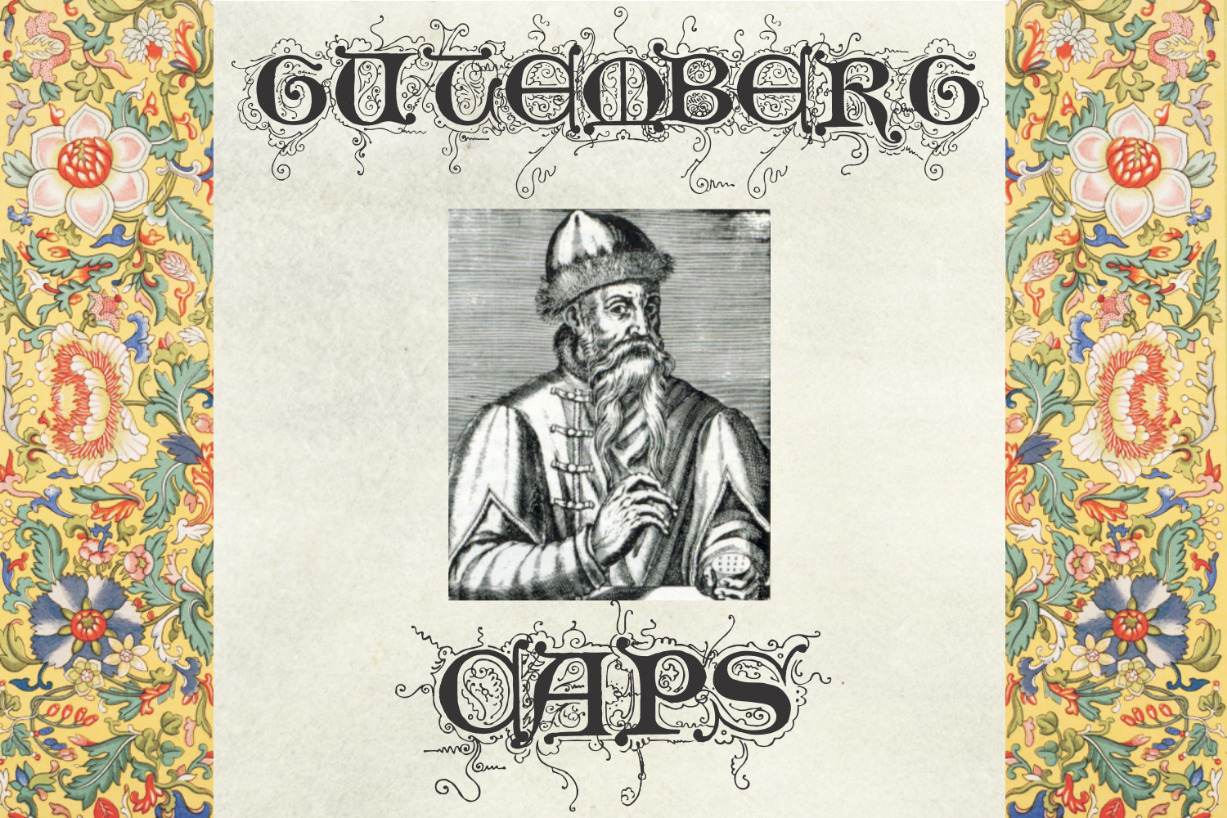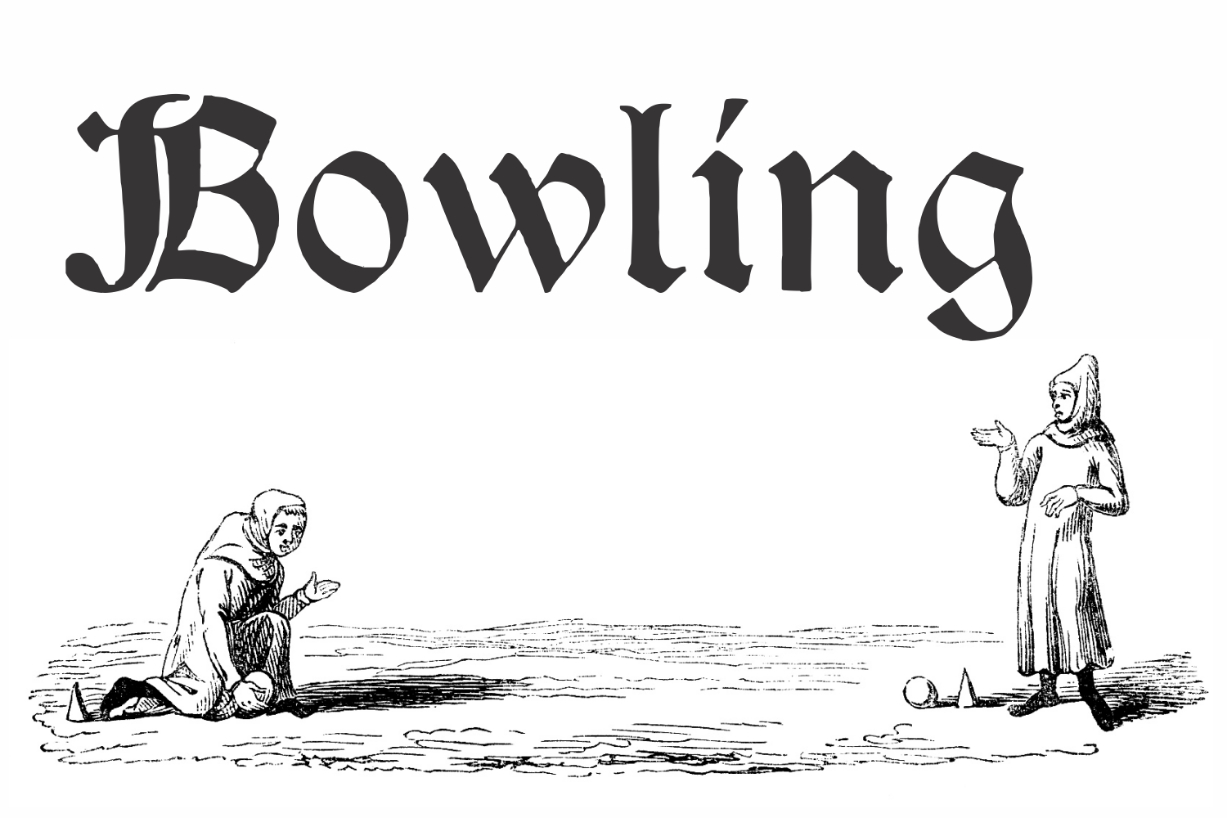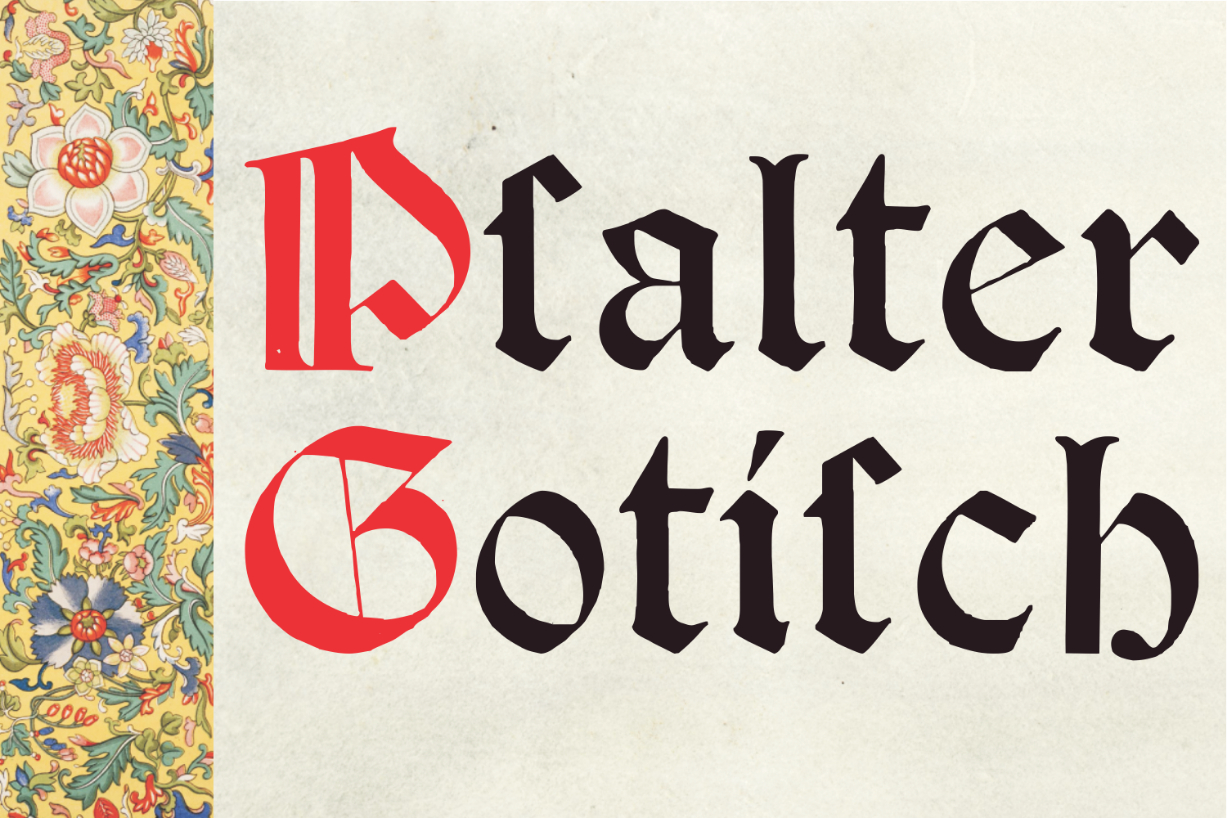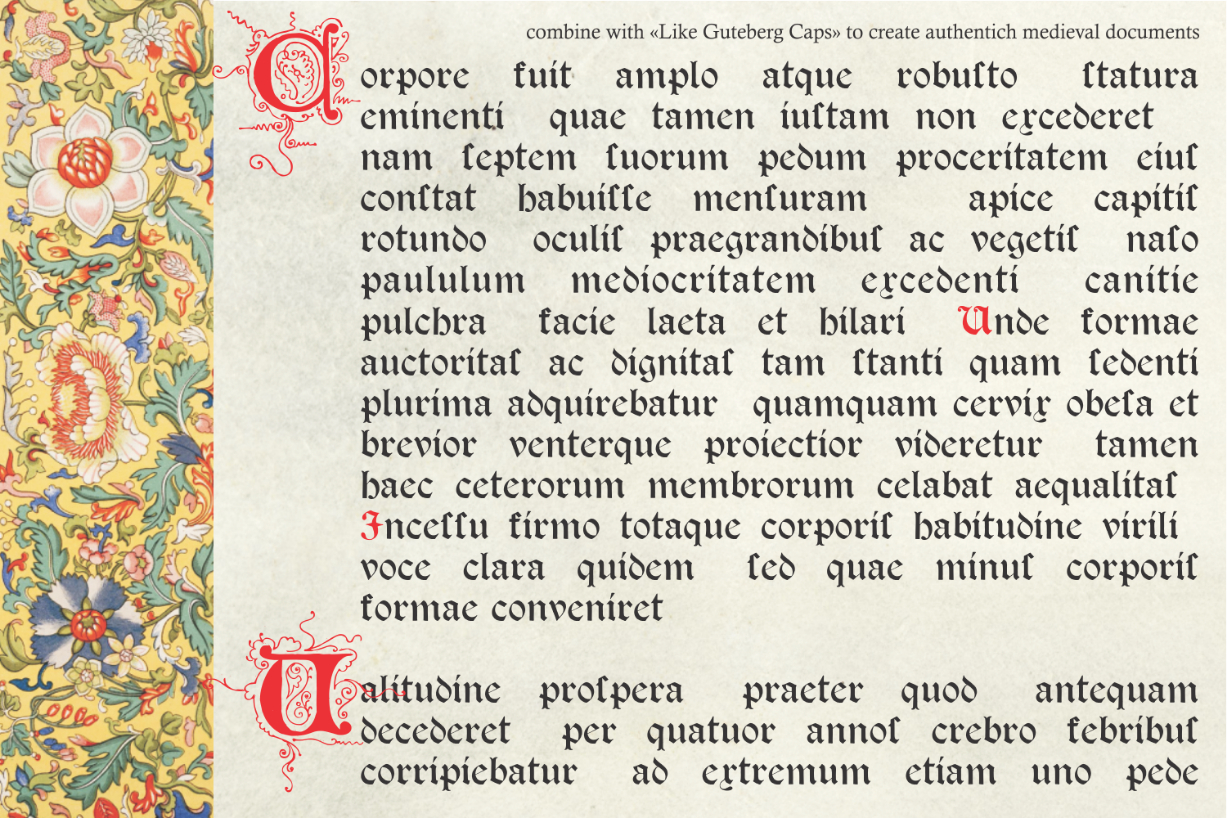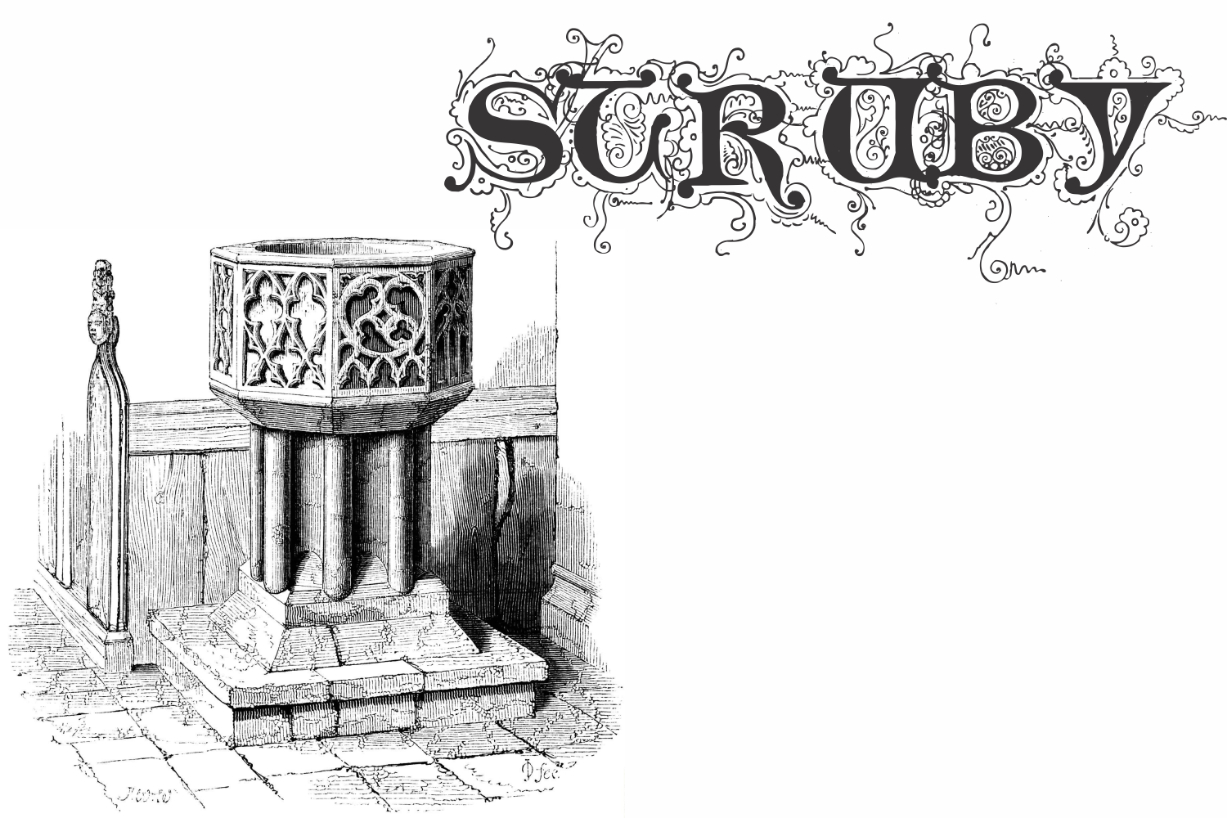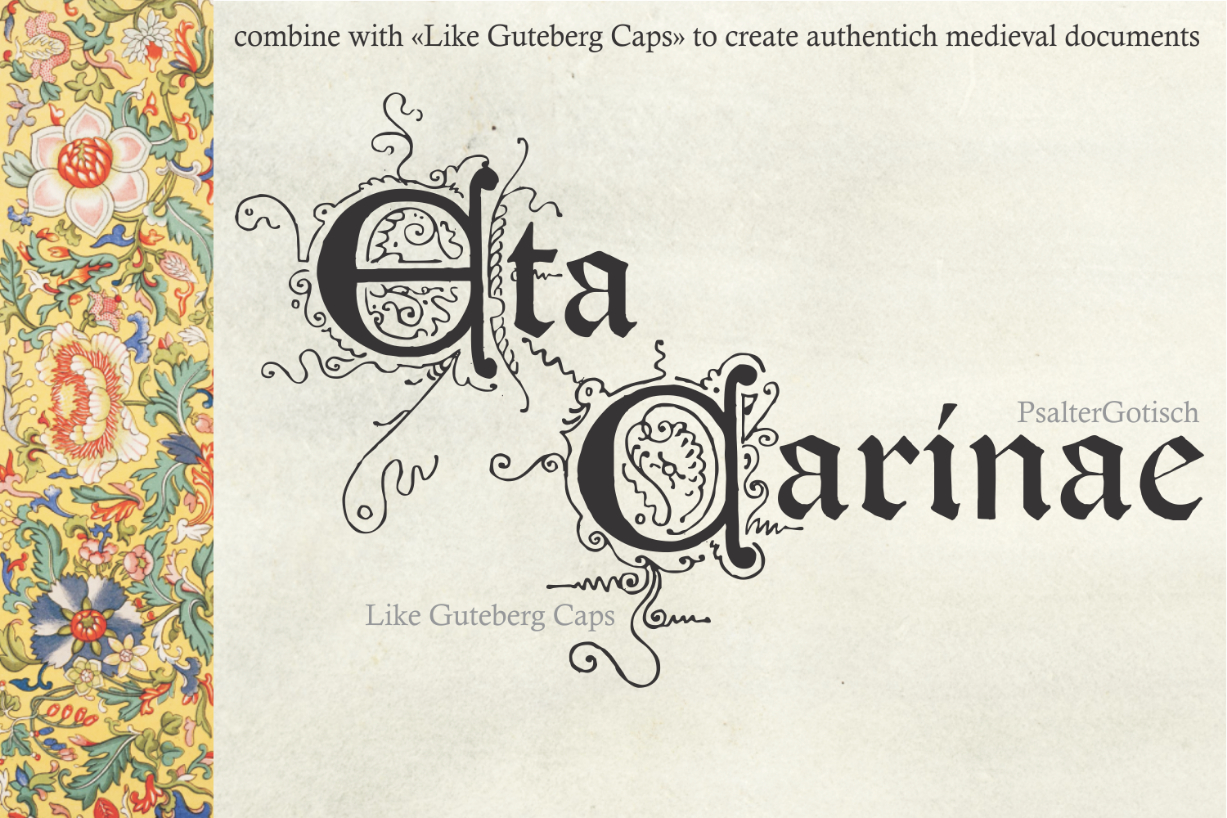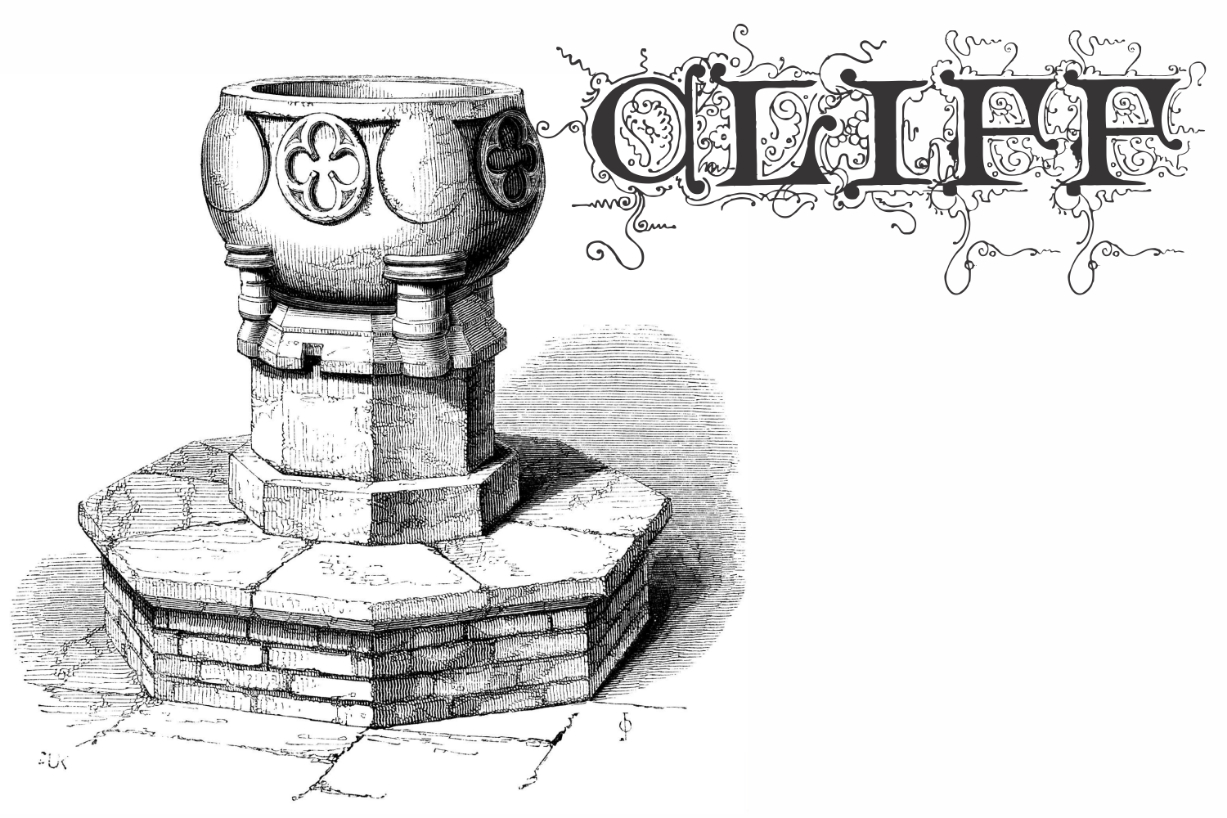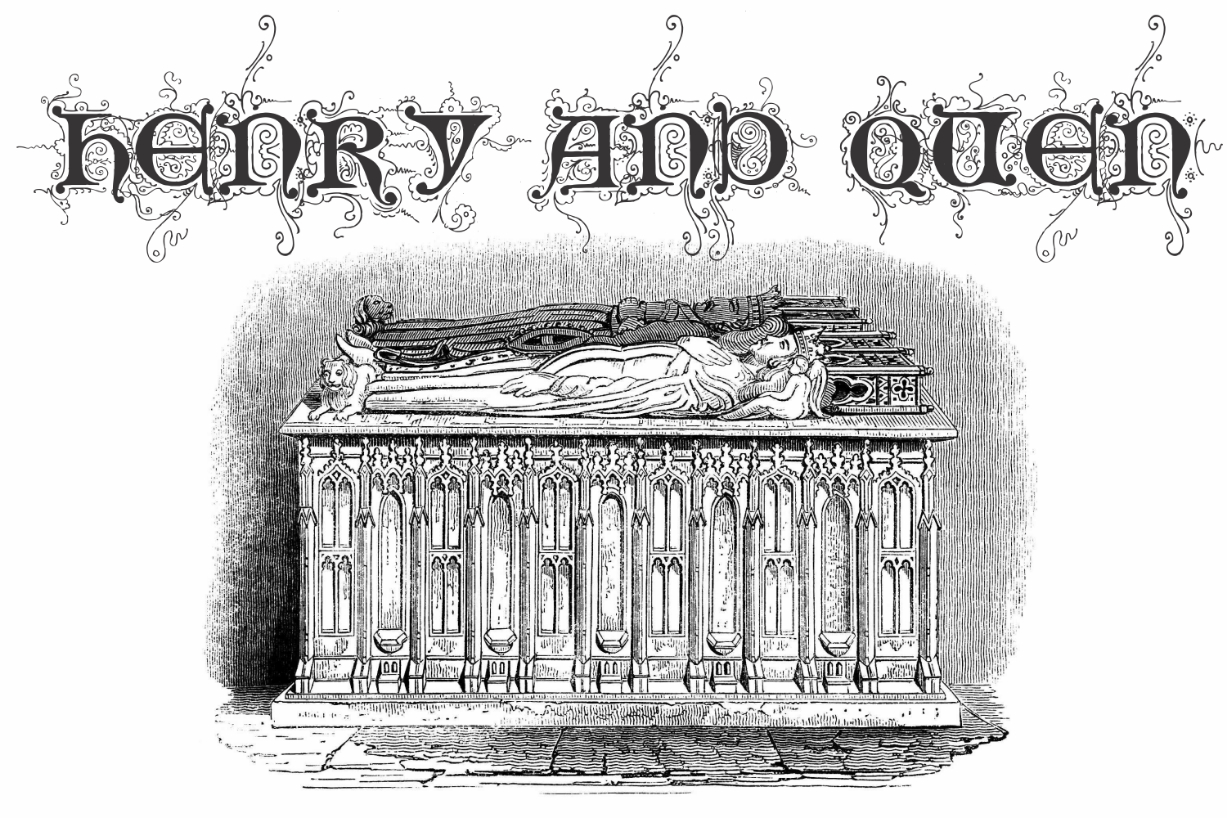
Gutemberg Psalter Gotisch Duo Font
The Gutemberg is a decorative lombardic font. Combine it with Psalter Gotisch (a classic blackletter type) to create authentic medieval documents,